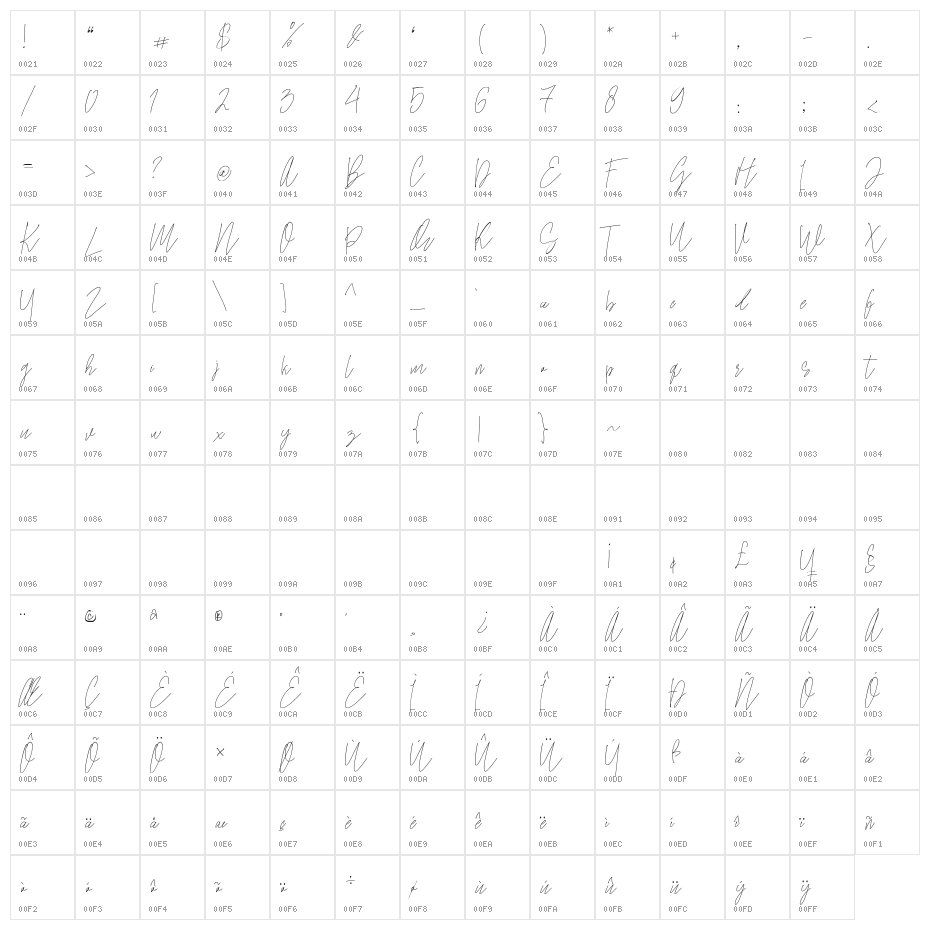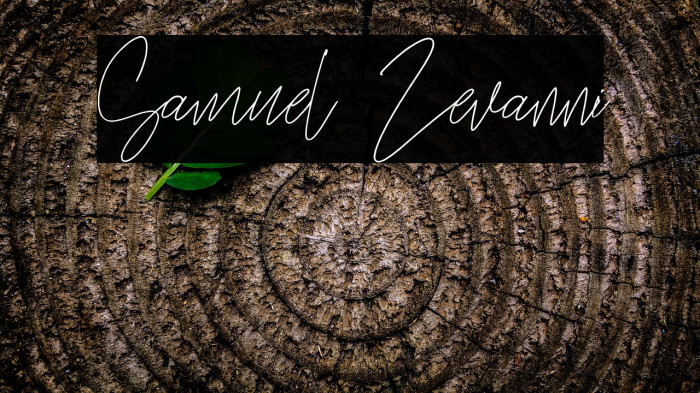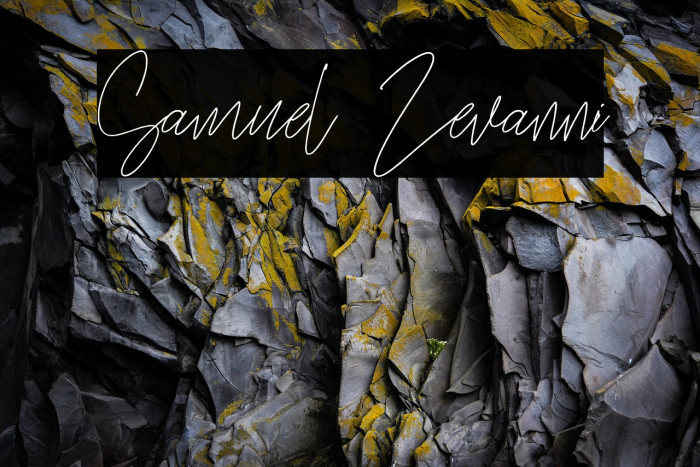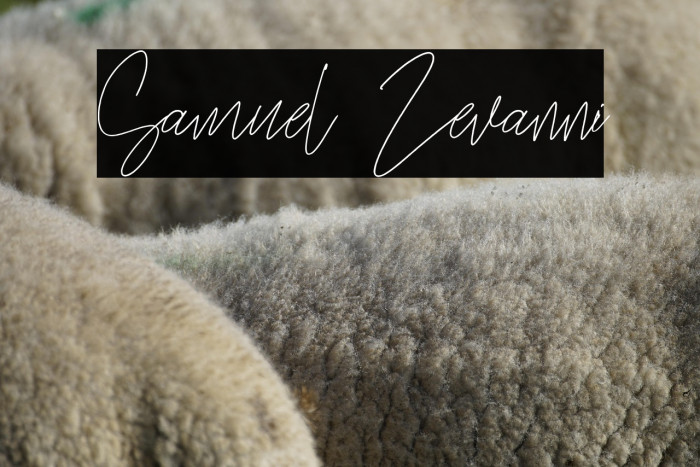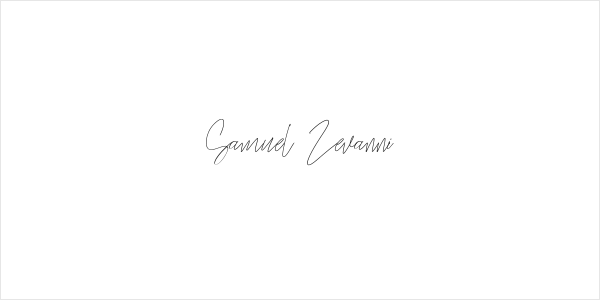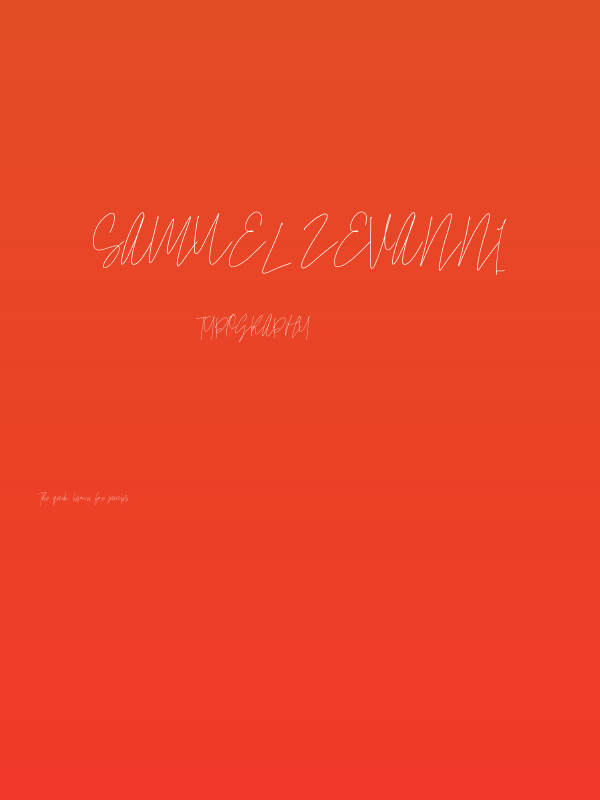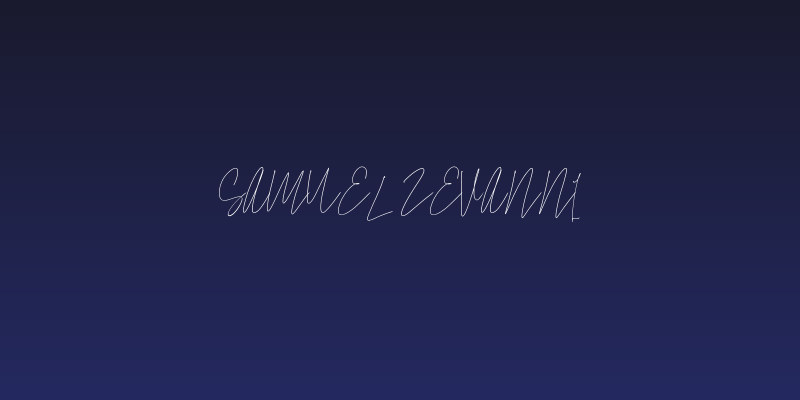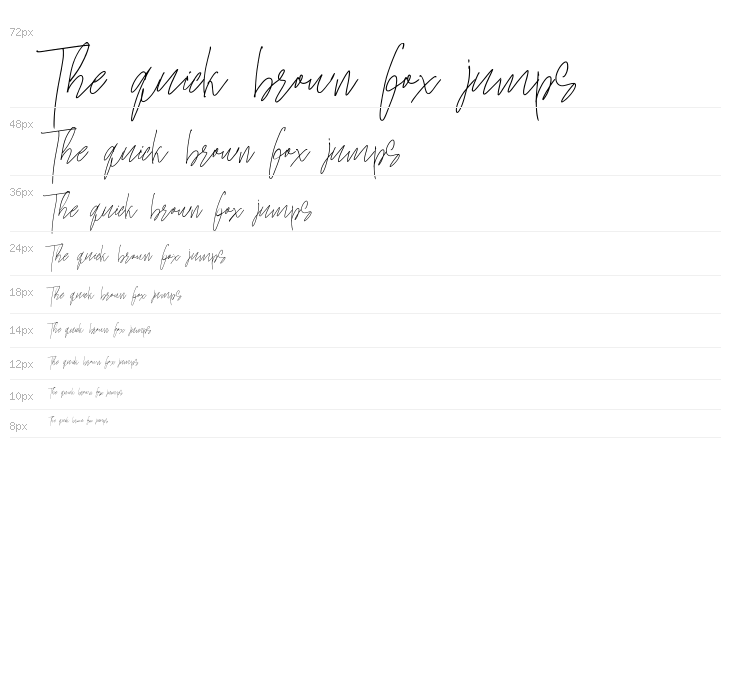
Samuel Zevanni Font
Samuel Zevanni Description
This font exudes a modern, handwritten style with a casual and flowing script. The letters are elegantly connected, giving it a natural and personal touch. The strokes are thin and consistent, providing a light and airy feel. The uppercase letters are slightly more structured, while the lowercase letters maintain a relaxed and informal appearance. The numerals and special characters are designed to match the overall aesthetic, ensuring a cohesive look across all text. This font is perfect for projects that require a personal, yet stylish touch.
| Proposed Projects | Ideal for wedding invitations, personal branding, greeting cards, and social media graphics. |